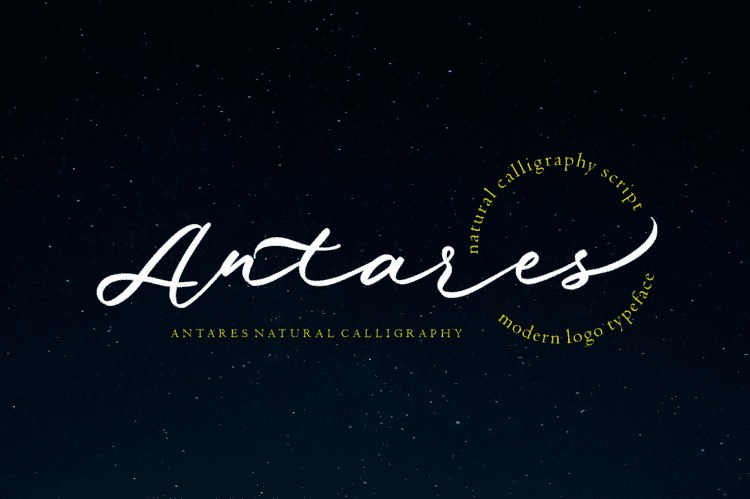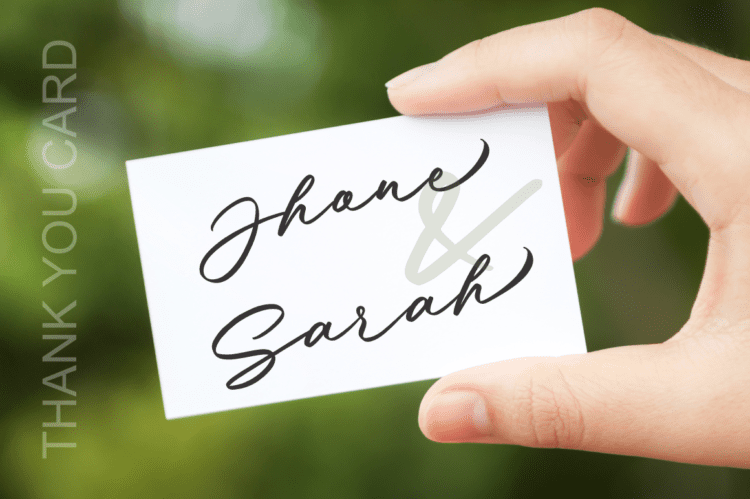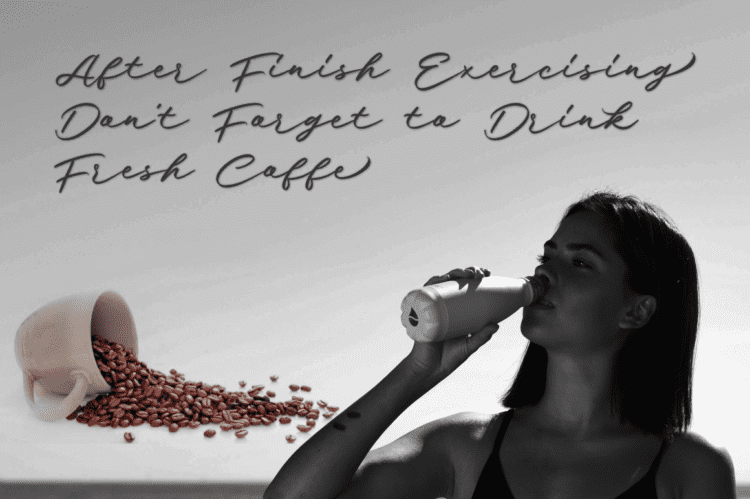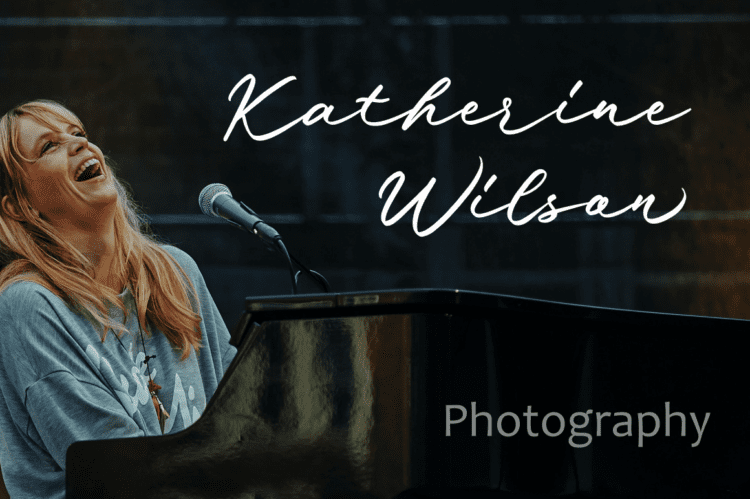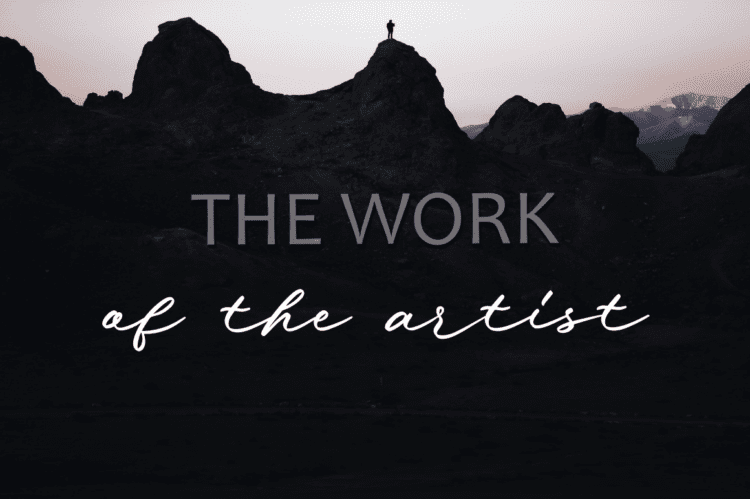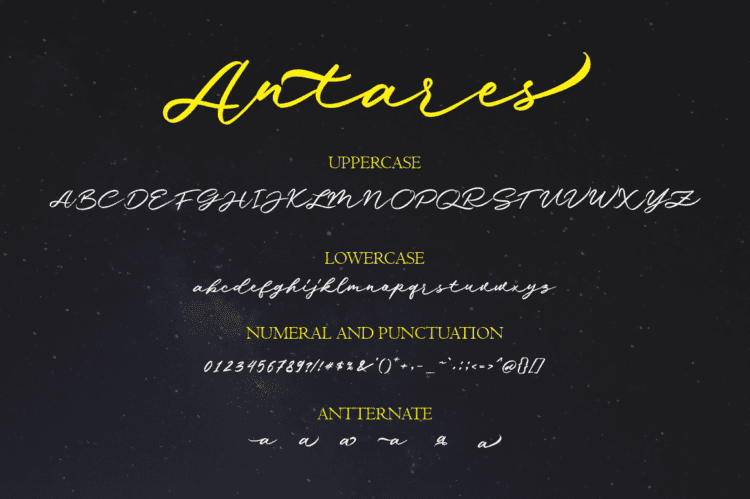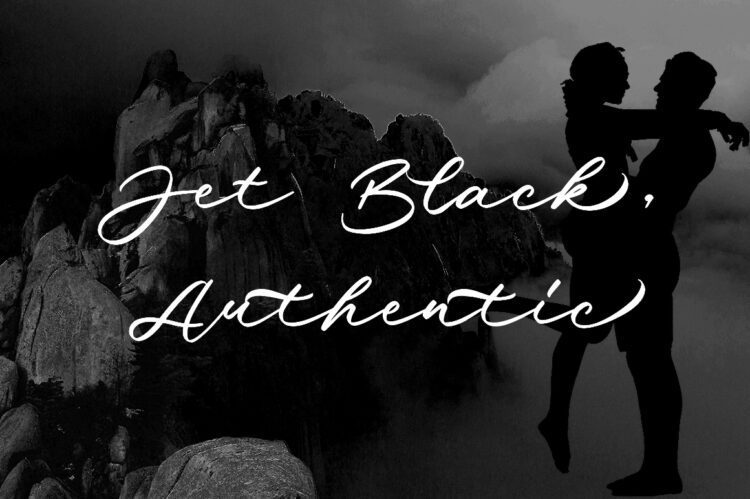
Antares
Antares font is a modern, dynamic handcrafted font that also has beautiful opentype features. Antares font is great for Branding, Logo Design, Fonts, Logotype, Clothing, Posters, magazines and other design projects.
Antares Script featuring OpenType style alternatives, ligatures and International support for most Western Languages ??
Antares | modern, dynamic handcrafted font